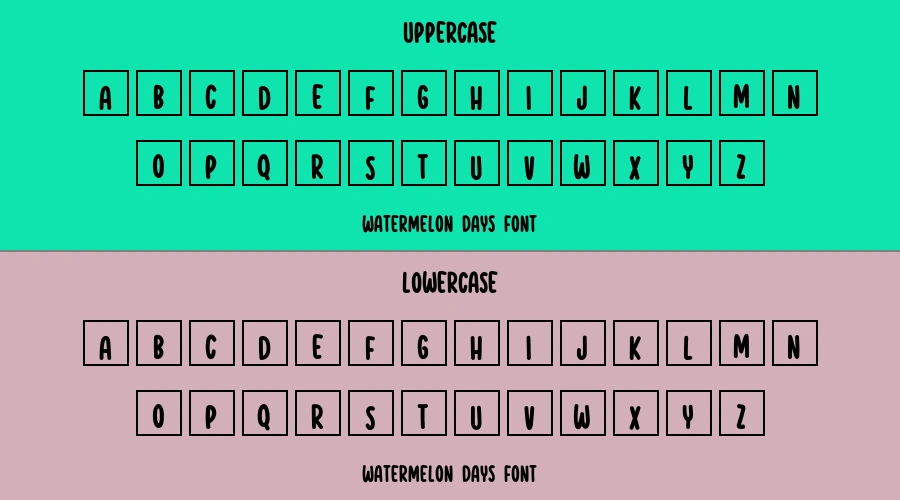
About Watermelon Days Font
Designed with precision, Watermelon Days Font merges circular bowls with reliability in every character. This versatility makes it particularly effective for brand identities, where legibility and aesthetic refinement directly impact communication quality. Each letterform demonstrates meticulous craftsmanship.
Technical excellence shines through elements like pen-inspired details and expert sets, enhancing typographic versatility. In white papers settings, Watermelon Days Font proves its worth through superior numerical alignment. The thoughtful execution of contrast level and engineering heritage ensures professional results.